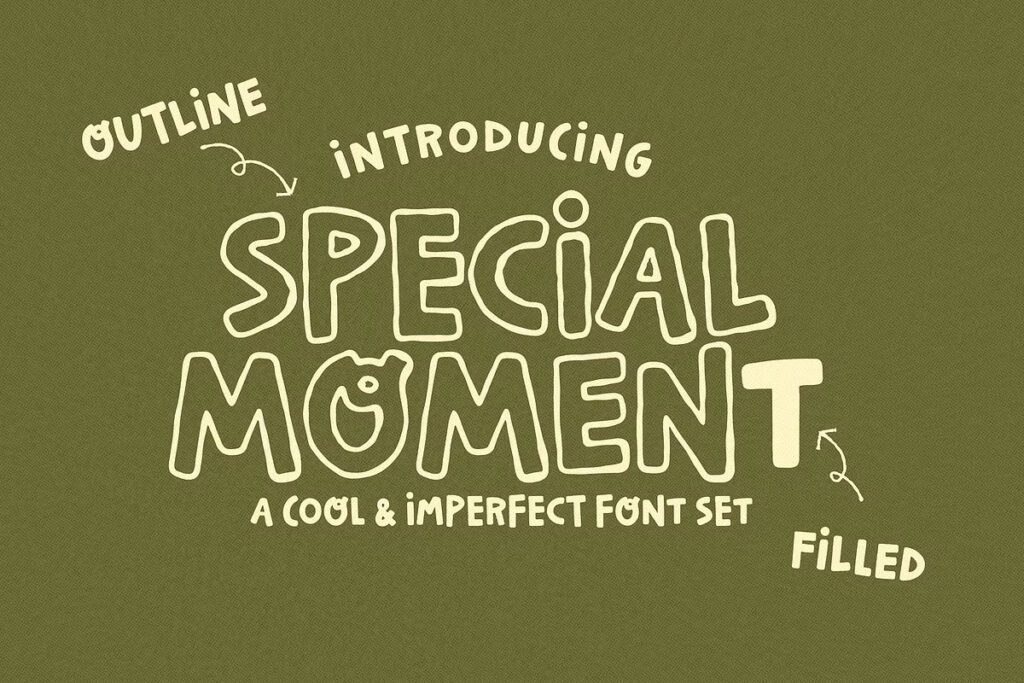
Unleash Your Creativity with the Playful “Special Moment” Font
Special Moment is a hand-drawn, fun, and organic font designed to bring a touch of whimsy to your creative projects. Whether you’re designing social media posts, YouTube covers, or crafting quotes and stickers, this versatile font set is the perfect tool to add a unique, playful vibe to your work.
Why “Special Moment” is the Ideal Font for Your Creative Needs
1. Hand-Drawn and Playful Design “Special Moment” features an imperfect, hand-drawn style that exudes charm and personality. This font is perfect for projects that require a more casual, fun, and approachable look. The playful design allows for creative expression, making it ideal for social media graphics, personalized quotes, and even branding materials.
2. Versatile Font Set This font set includes three different styles: Regular, Bold, and Fill. Each style offers a unique way to express your creativity. Mix and match uppercase and lowercase letters to create organic, one-of-a-kind designs that stand out.
3. Perfect for Social Media In today’s digital world, eye-catching visuals are crucial for grabbing attention on platforms like Instagram and YouTube. “Special Moment” is designed with social media in mind, making it the go-to font for creating engaging posts, thumbnails, and stickers that resonate with your audience.
4. Includes Accent Characters and Symbols “Special Moment” comes with accent characters and most symbols, ensuring that your designs are versatile and fully customizable. The font also includes five special symbols—hearts, stars, and shines—that can be used to create cute and cool compositions, adding an extra layer of creativity to your projects.
Special Moment by María Feliz is more than just a font—it’s a creative companion that helps you make every moment special. Its playful, hand-drawn style, combined with its versatility and ease of use, makes it an essential tool for designers looking to add a touch of fun and creativity to their projects. Whether you’re working on social media content, branding, or personal designs, “Special Moment” is the font that brings your ideas to life with a unique, organic flair.